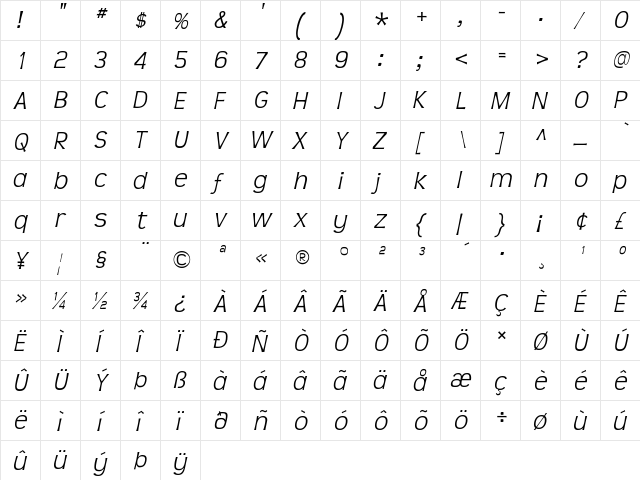
Teen Light Italic
| Foundry | Martin Archer / Ray Larabie |
| Designer | Ray Larabie & Martin Archer |
Design Context for Teen Typeface
Teen is a composed and adaptable typeface that performs quietly and consistently across a wide range of design contexts. The slanted form adds forward momentum and visual energy. Its slender proportions lend an understated elegance to any composition.